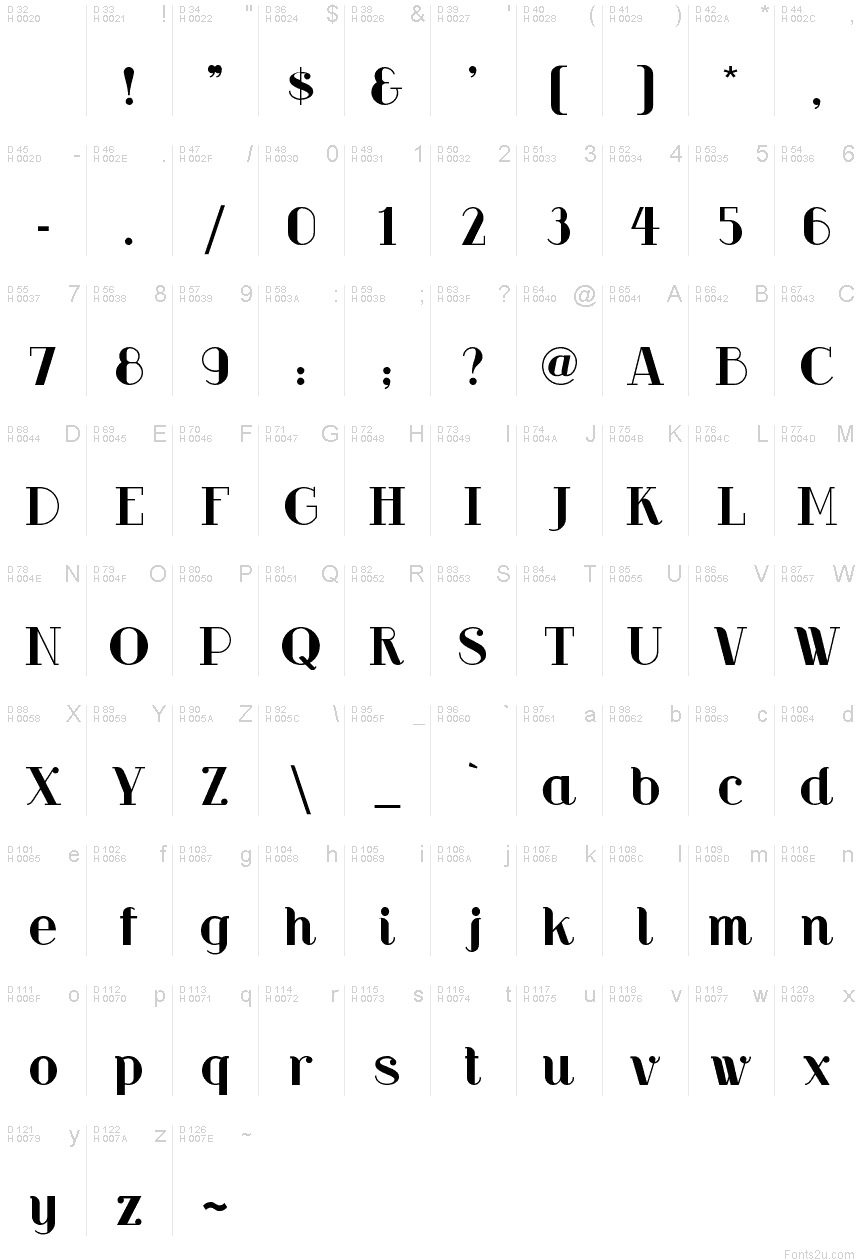
RiotSquad
Riot Squad by Nick Curtis is a free retro display font with a theatrical, early-20th-century poster mood. The letters mix tall, elegant curves with sudden heavy black wedges and round dots, giving the alphabet a slightly unruly rhythm that feels decorative without turning fussy.
That makes it a natural fit for vintage branding, music flyers, cocktail menus, magazine cover lines, and title cards where a few words need attitude rather than neutrality. As a free font, RiotSquad works especially well for short headlines, monograms, and drop caps, since those bulb-like dots and sweeping dark shapes give even brief settings a strong period flavor.